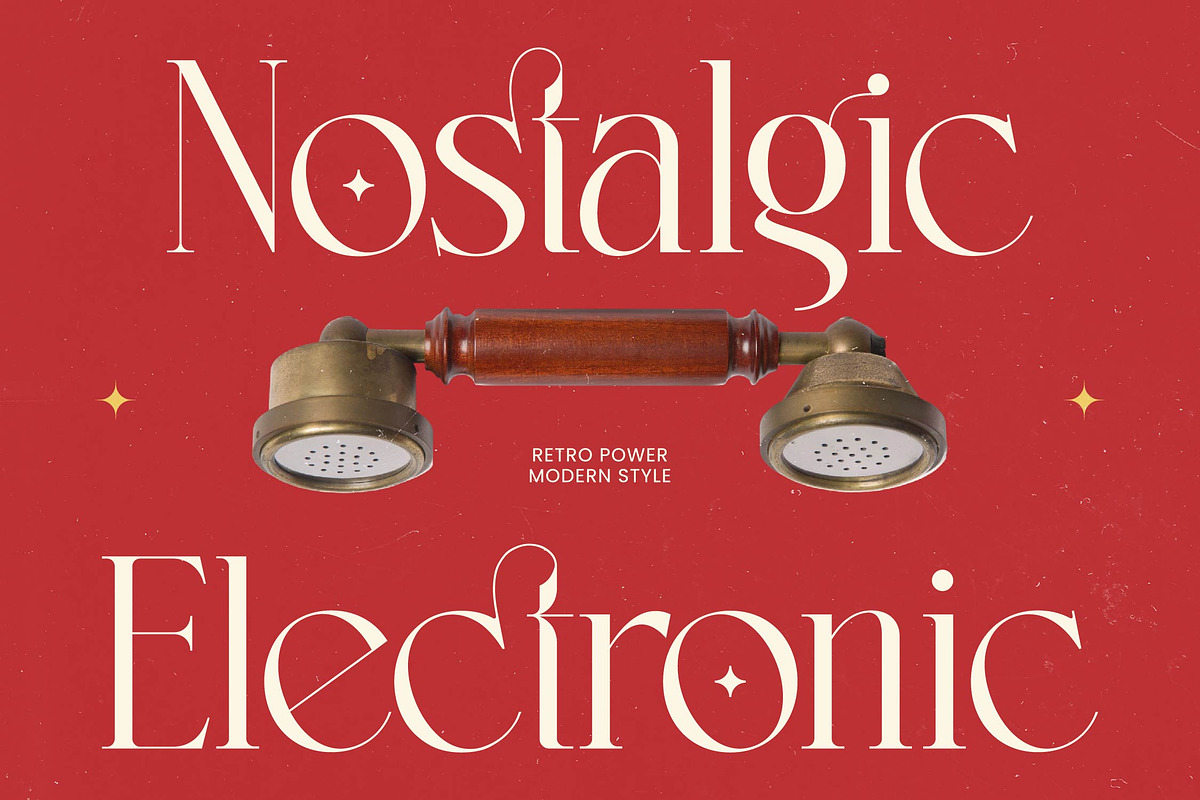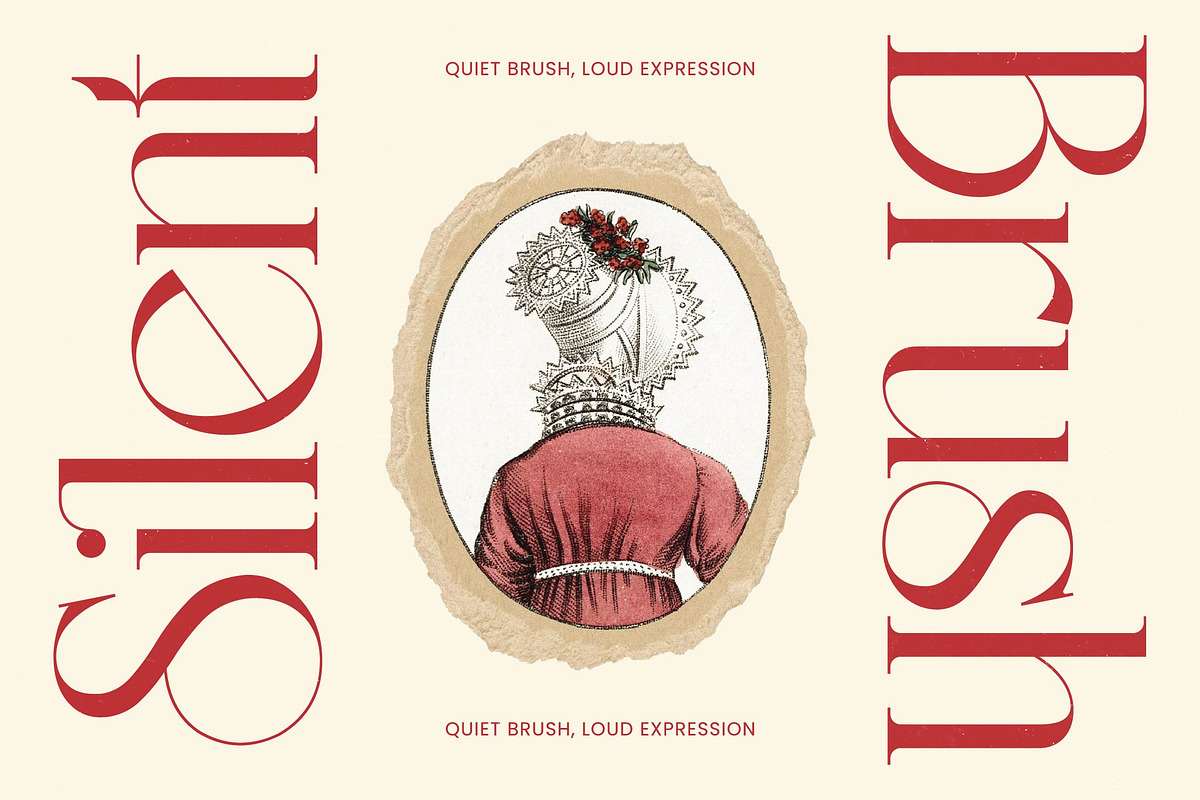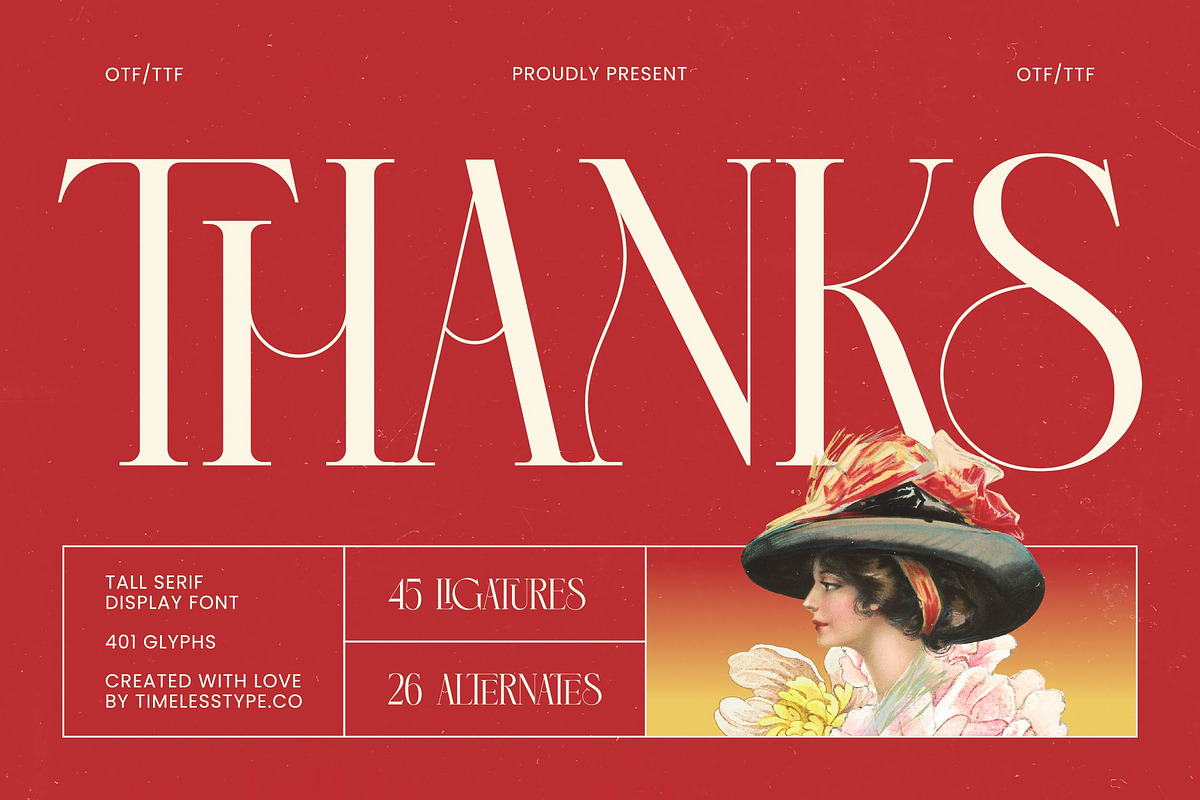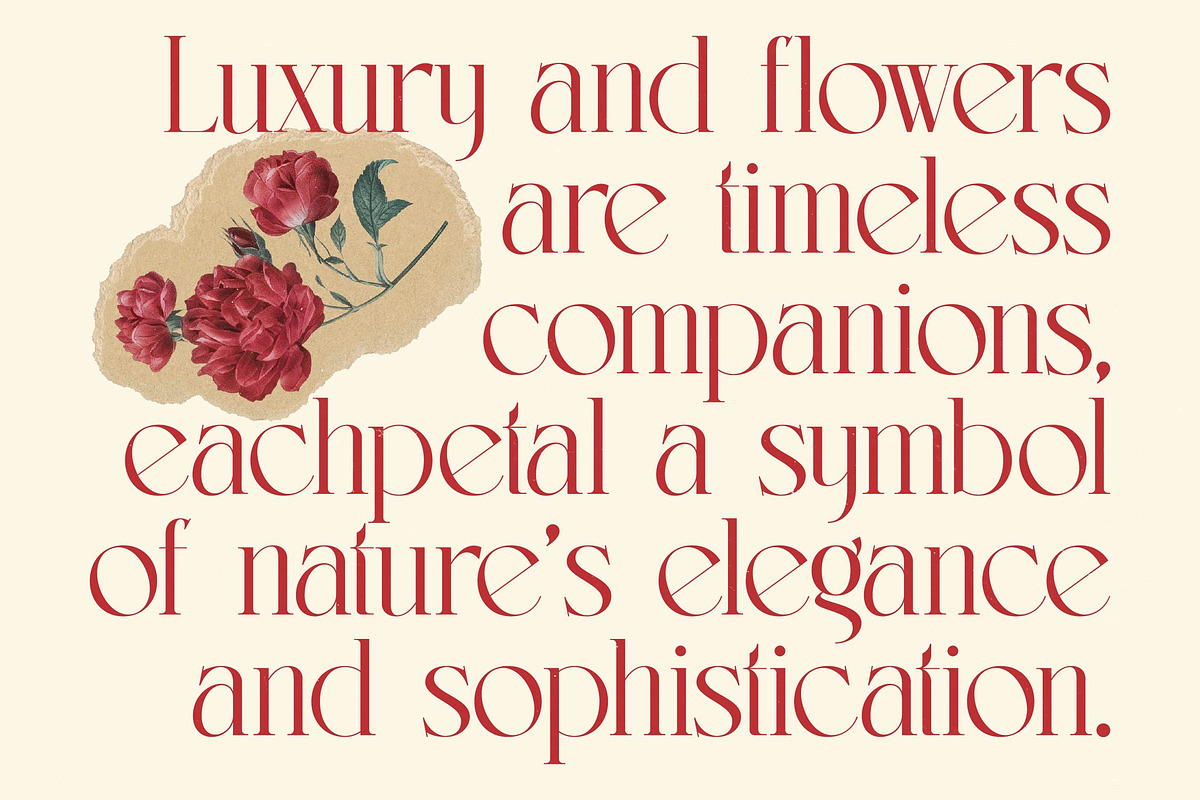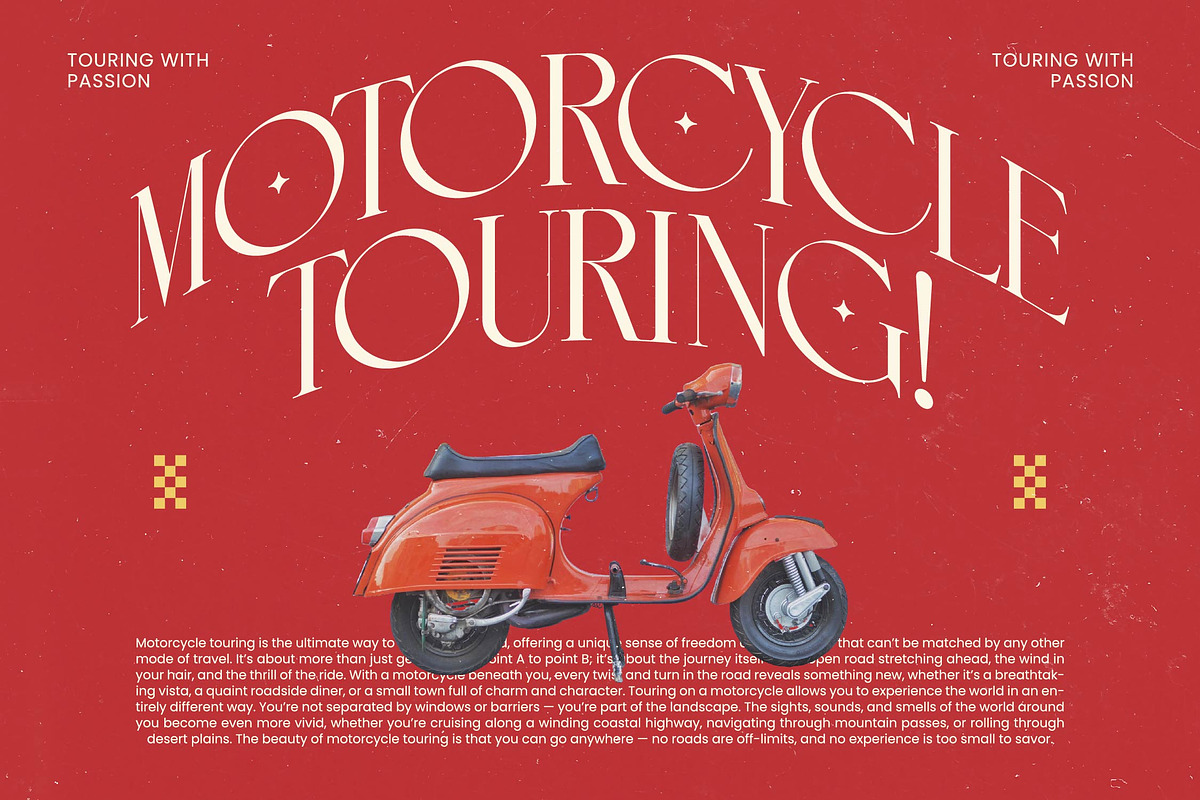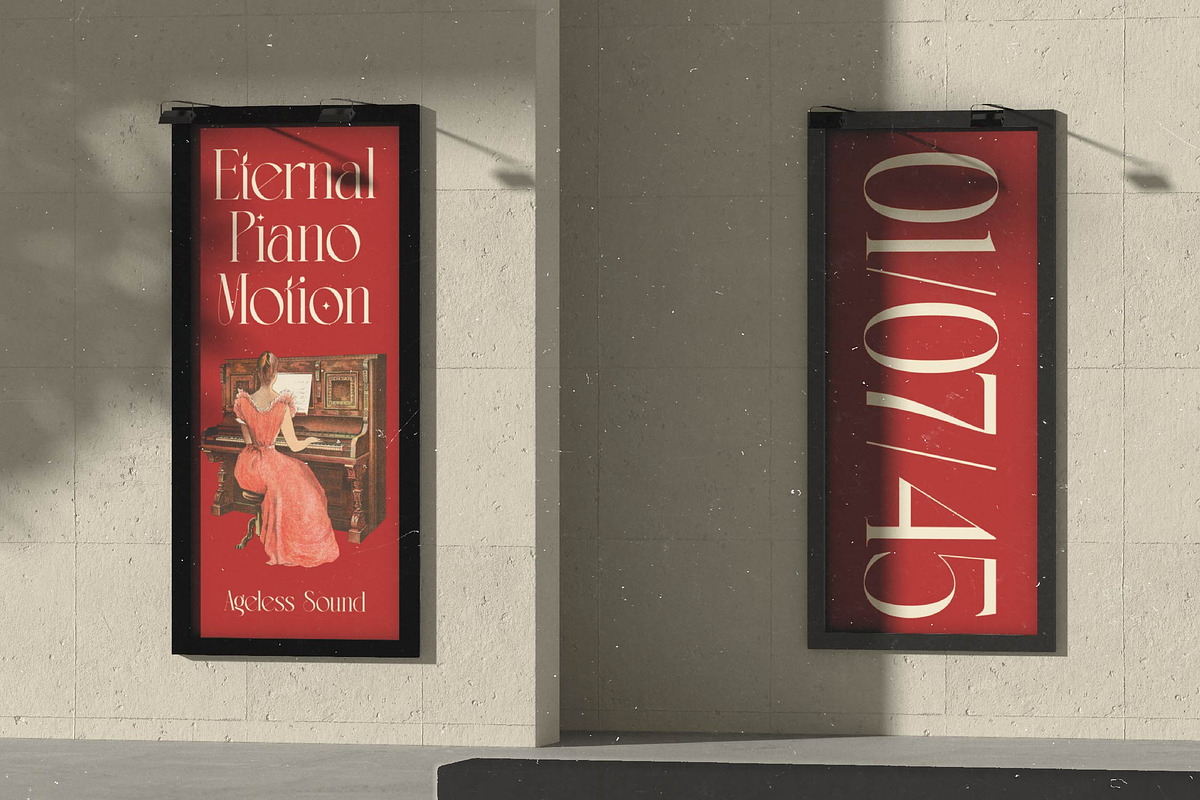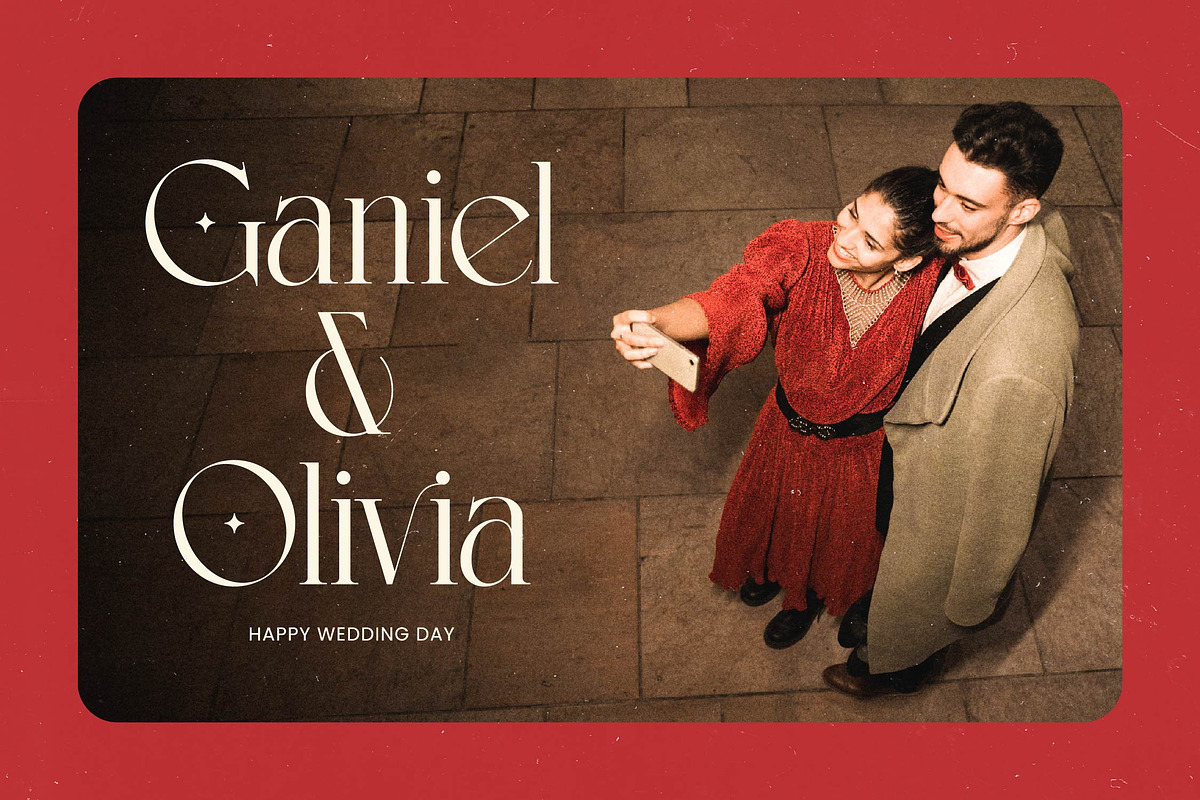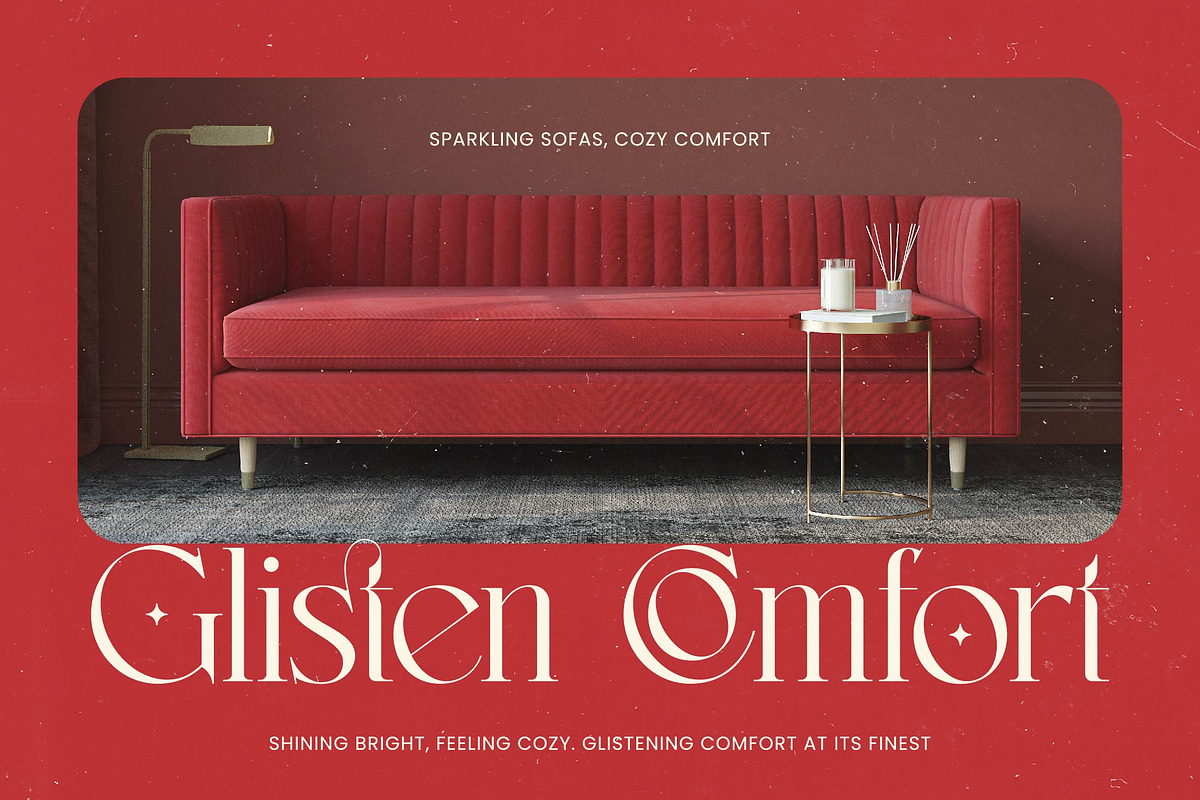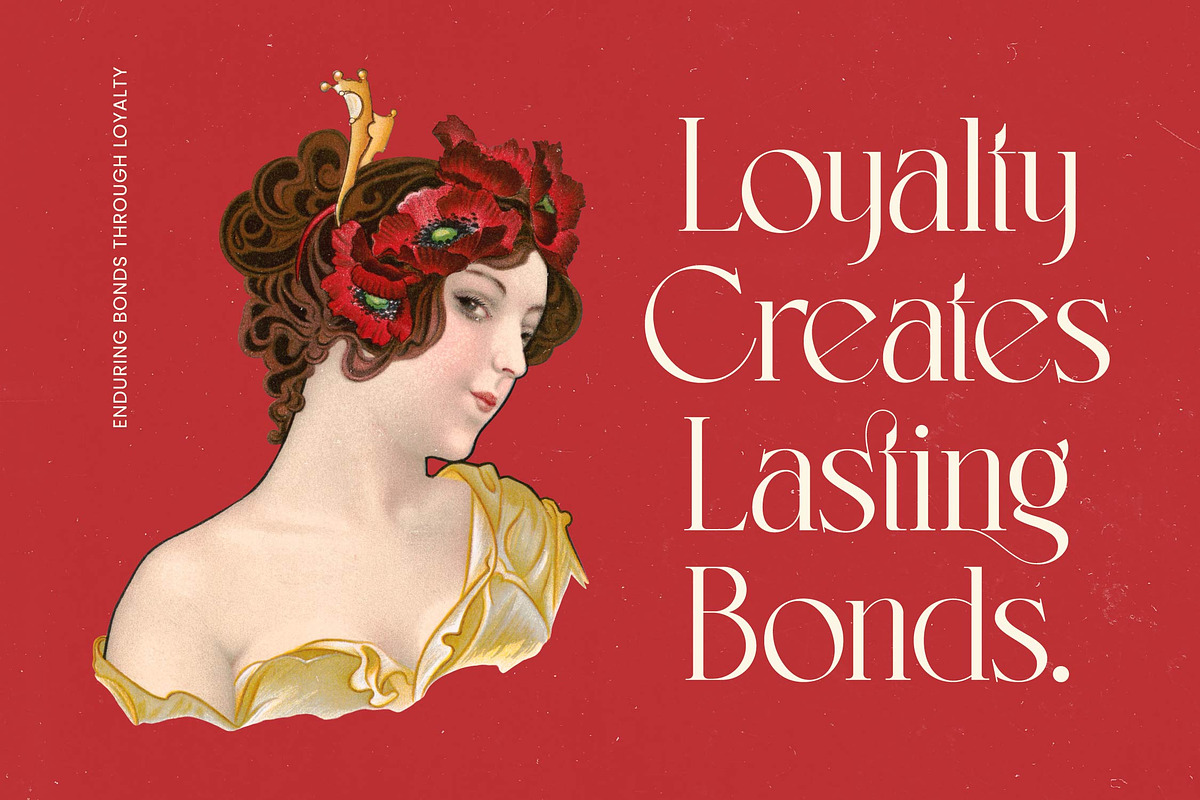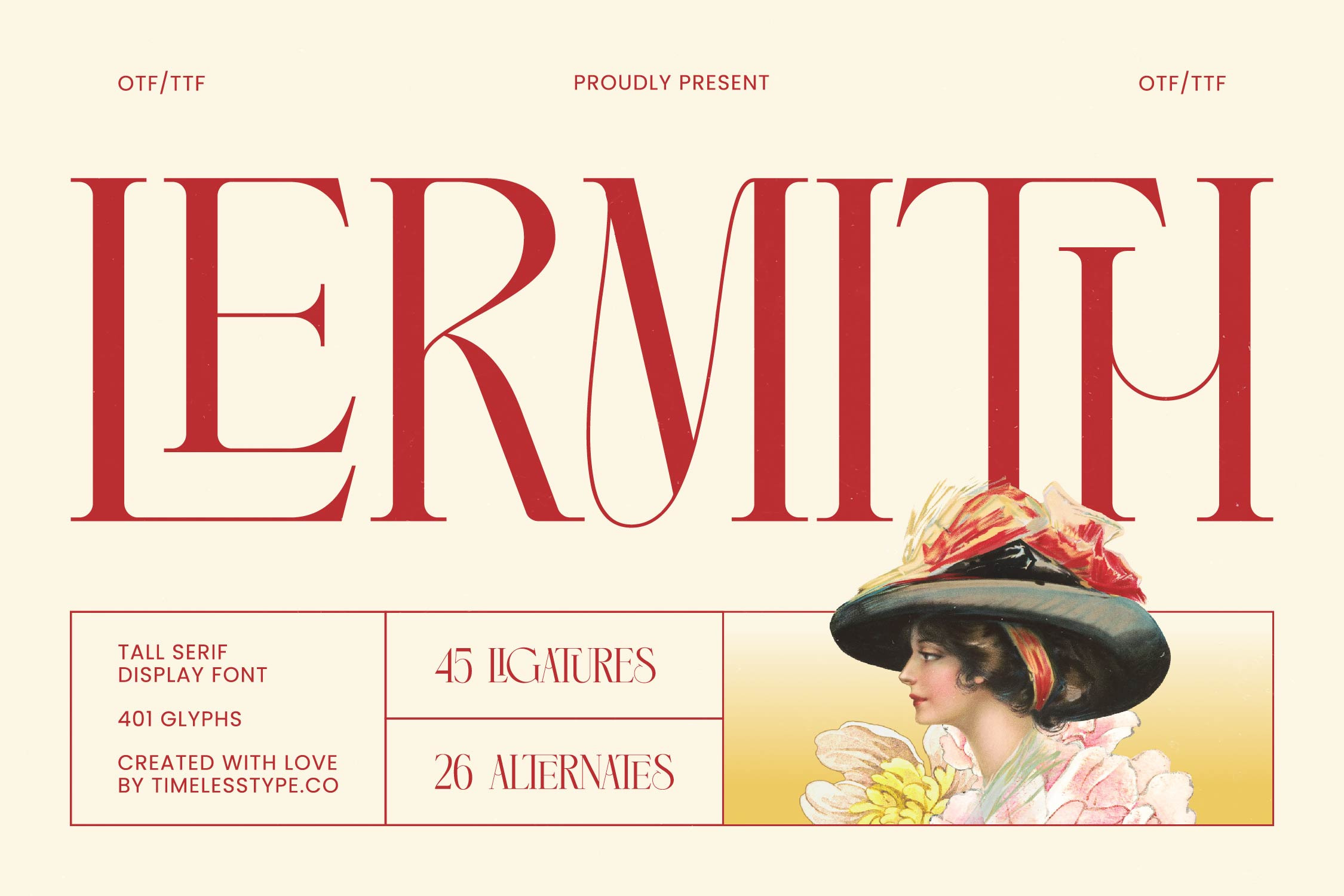
Lermith - Tall Luxury Serif Font
Lermith captures a fleeting moment of pure elegance, blending the timeless grace of high-fashion history with a sharp, contemporary edge. It is a typographic masterpiece designed for those who seek to leave a lasting impression of sophistication and poise through every character.
Drawing inspiration from the romanticism of the early 20th century and the refined aesthetics of vintage editorial layouts, this typeface breathes life into the page with its elongated proportions. The visual narrative of the font is rooted in the delicate balance between classic charm and a bold, forward-thinking spirit that transcends traditional design boundaries.
This modern serif display is defined by its dramatic verticality and high-contrast serif strokes that command attention in any luxury typography setting. Every glyph is crafted for maximum branding impact, making it the quintessential editorial font for projects that require a touch of haute couture refinement and artistic flair.
Aligning perfectly with the current modern serif trend, this typeface meets the demand for character-driven typography that breaks away from the mundane. Designers looking for editorial display fonts will find its unique silhouettes and artistic flourishes ideal for staying ahead in a saturated visual landscape where personality is key.
From high-end logo design to cohesive visual branding, Lermith excels in environments where style is paramount and quality is non-negotiable. It is a stunning choice for editorial spreads, luxury packaging, romantic wedding stationery, and the fast-paced world of fashion advertising where first impressions are everything.
The package is remarkably versatile, featuring an extensive library of ligatures and alternates that allow for custom typographic compositions and unique wordmarks. It also includes decorative swashes and full multilingual support with international characters to ensure your message translates beautifully and professionally across global markets.
- Ligature 45 Alternate 26